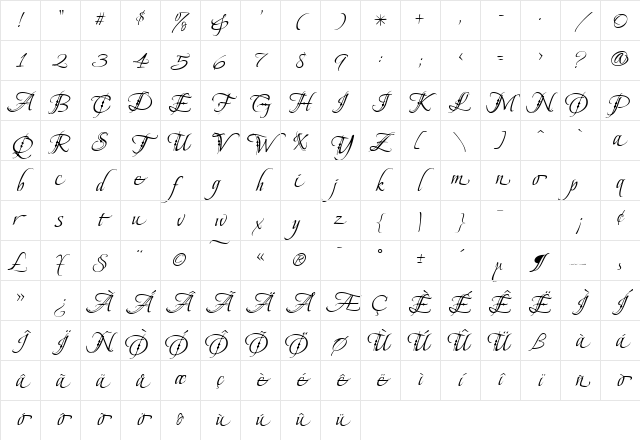
BeauRivageTwo Regular
Design Context for BeauRivageTwo
BeauRivageTwo is a composed and adaptable typeface that performs quietly and consistently across a wide range of design contexts.